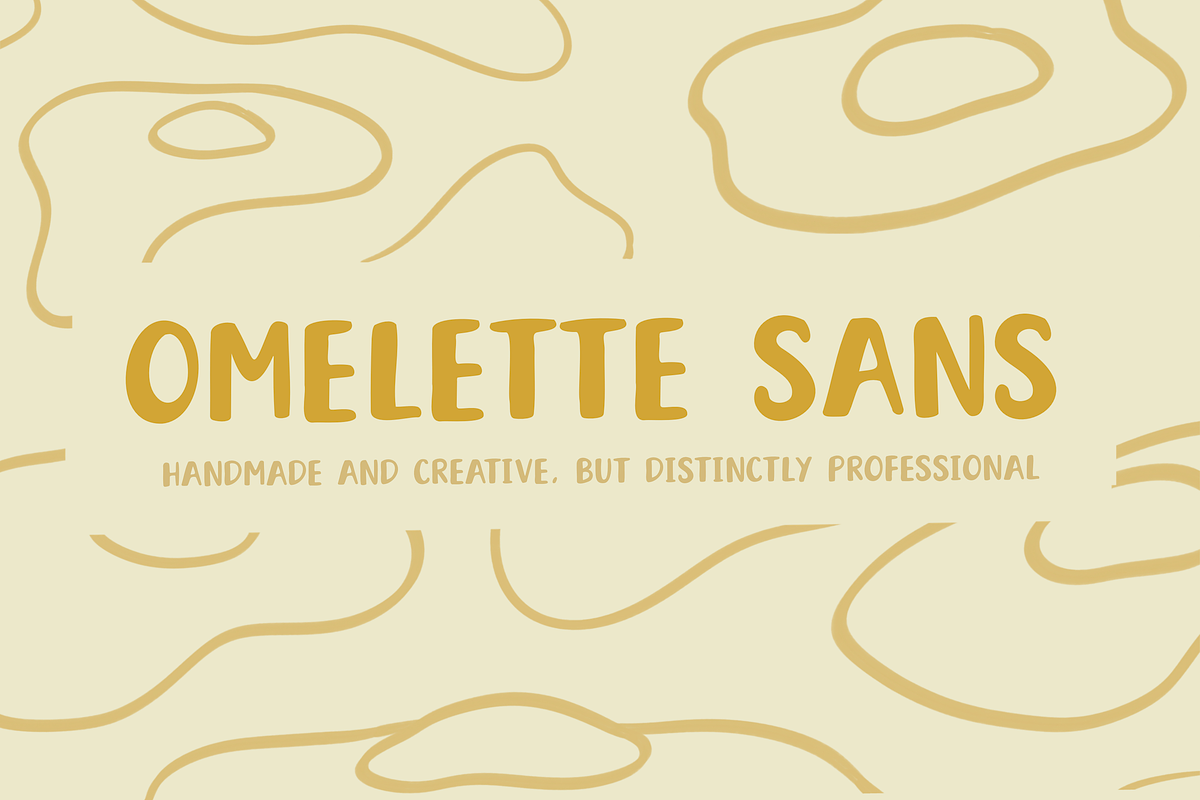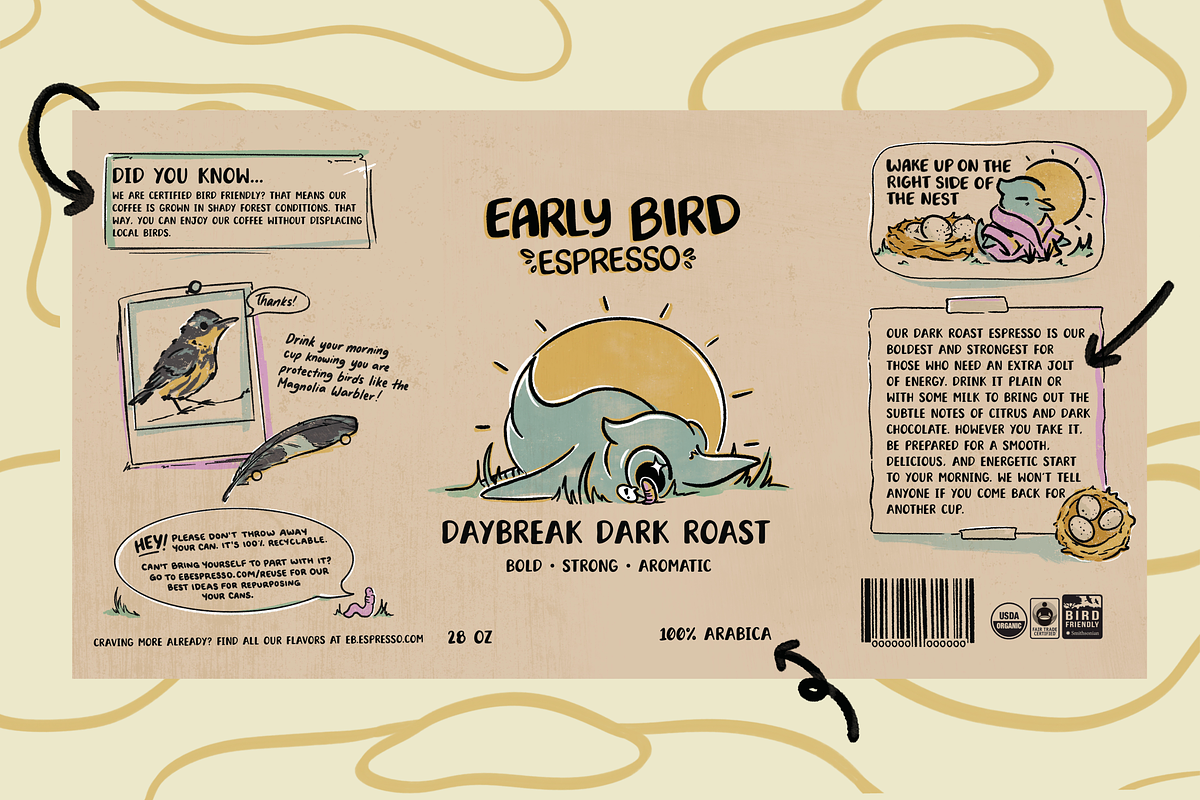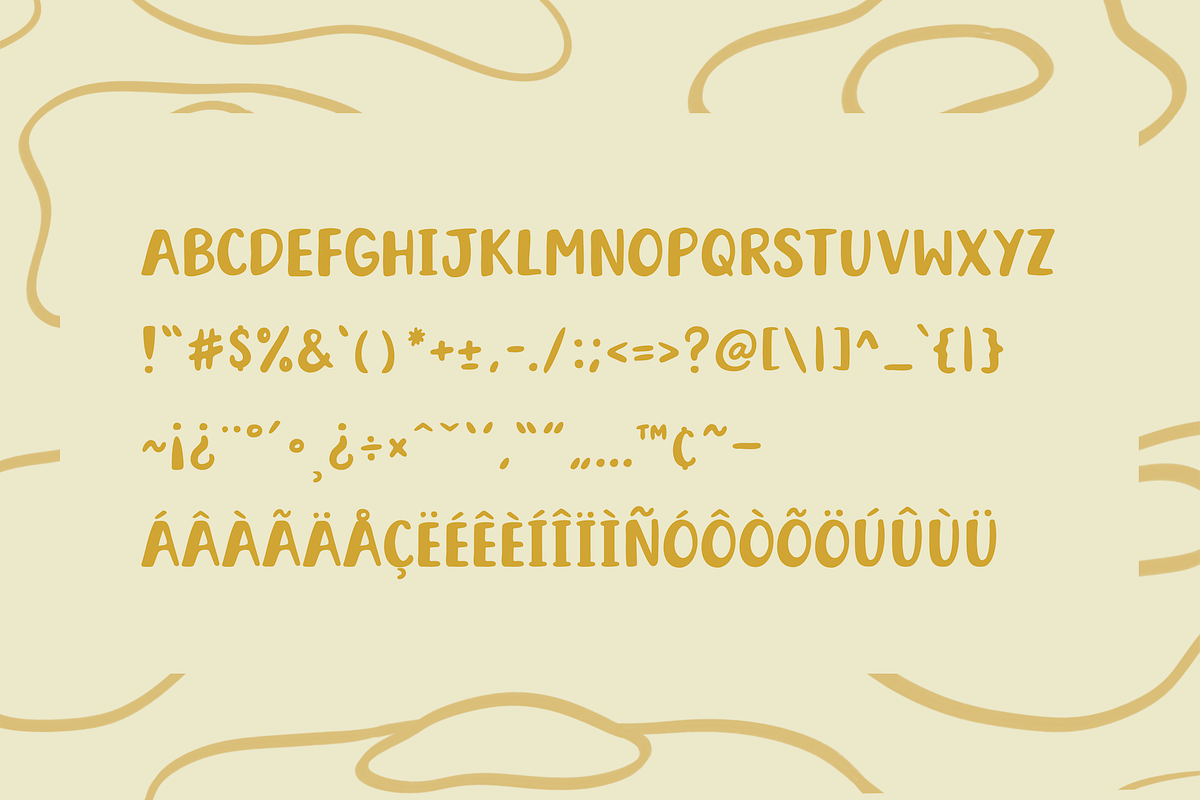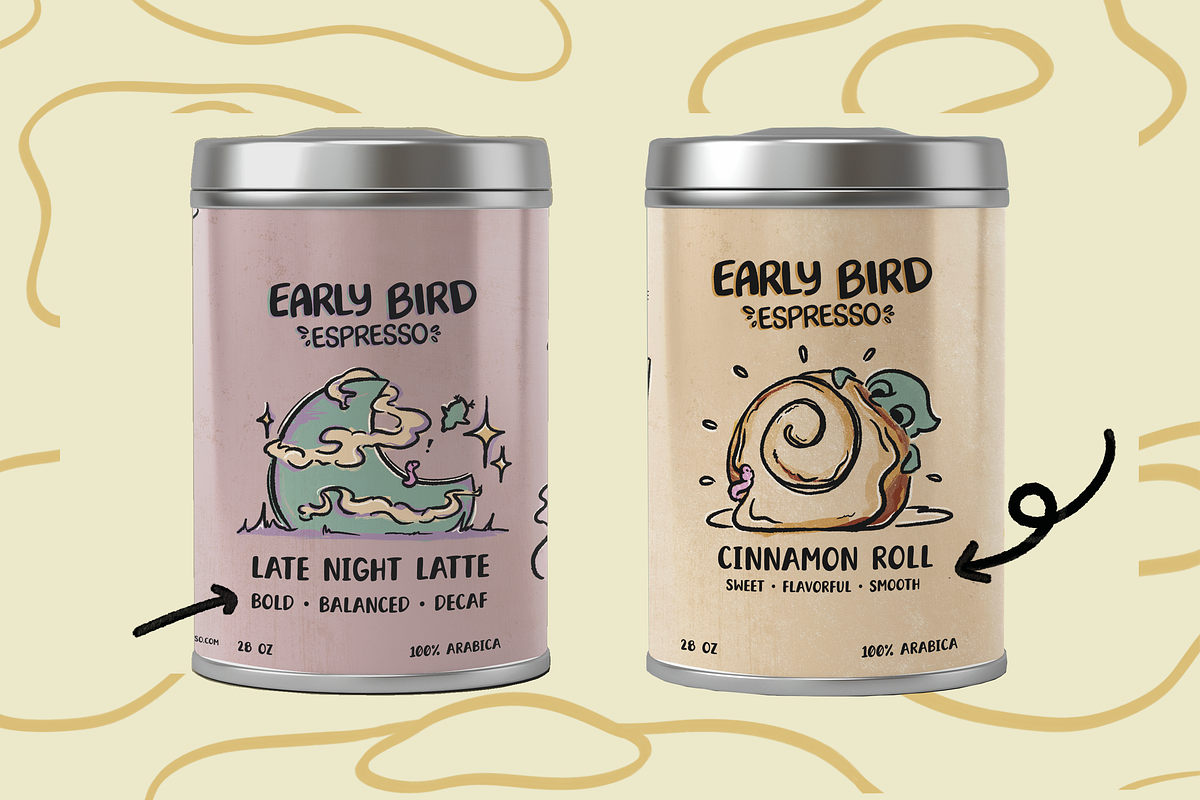
Omelette Sans
Omelette Sans is a sans serif font with a distinctly hand lettered feel. Perfect for brunch menus, beverage packaging, or a hand lettered capitalized feel.
Omelette Sans is a completely capitalized font, with special characters and accents. Your purchase covers one user with permission for personal use as well as commercial use. You will be emailed an otf file you can simply install on your computer or upload to a font library in programs such as procreate and adobe applications. Need to see more? Email and I'll see if I can answer your questions!